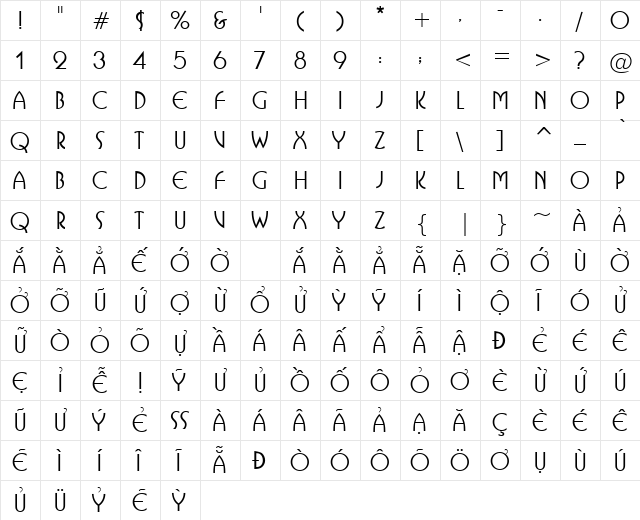
VPS Bac Giang Hoa Font Preview
Design Context for VPS Bac Giang Hoa Typeface
VPS Bac Giang Hoa is a composed and adaptable typeface that performs quietly and consistently across a wide range of design contexts.